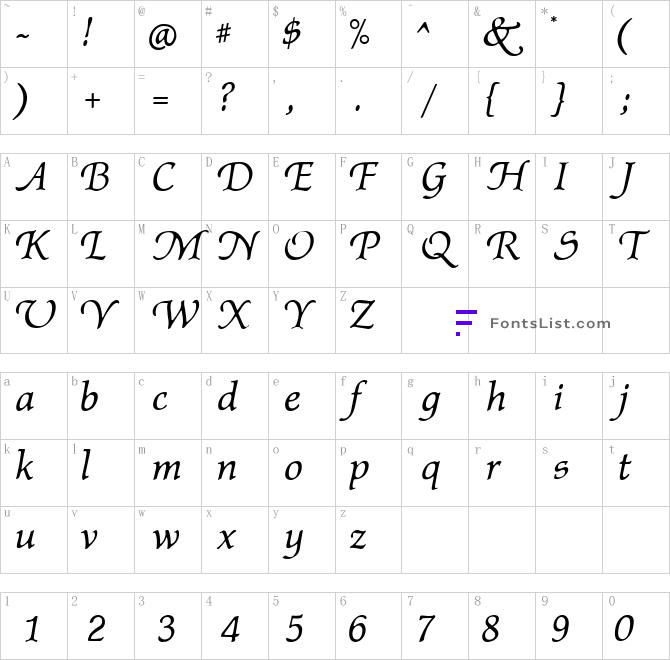
- Font Name:Afton
Afton.ttf is a very beautiful artistic font, Afton.ttf is widely used in the design and printing of various books and pictures,Afton.ttf has a strong visual impact,Afton.ttf is a commonly used font in newspapers, magazines and books, and is used in posters, e-commerce Poster design, store design, logo design, font design and other fields.Afton.